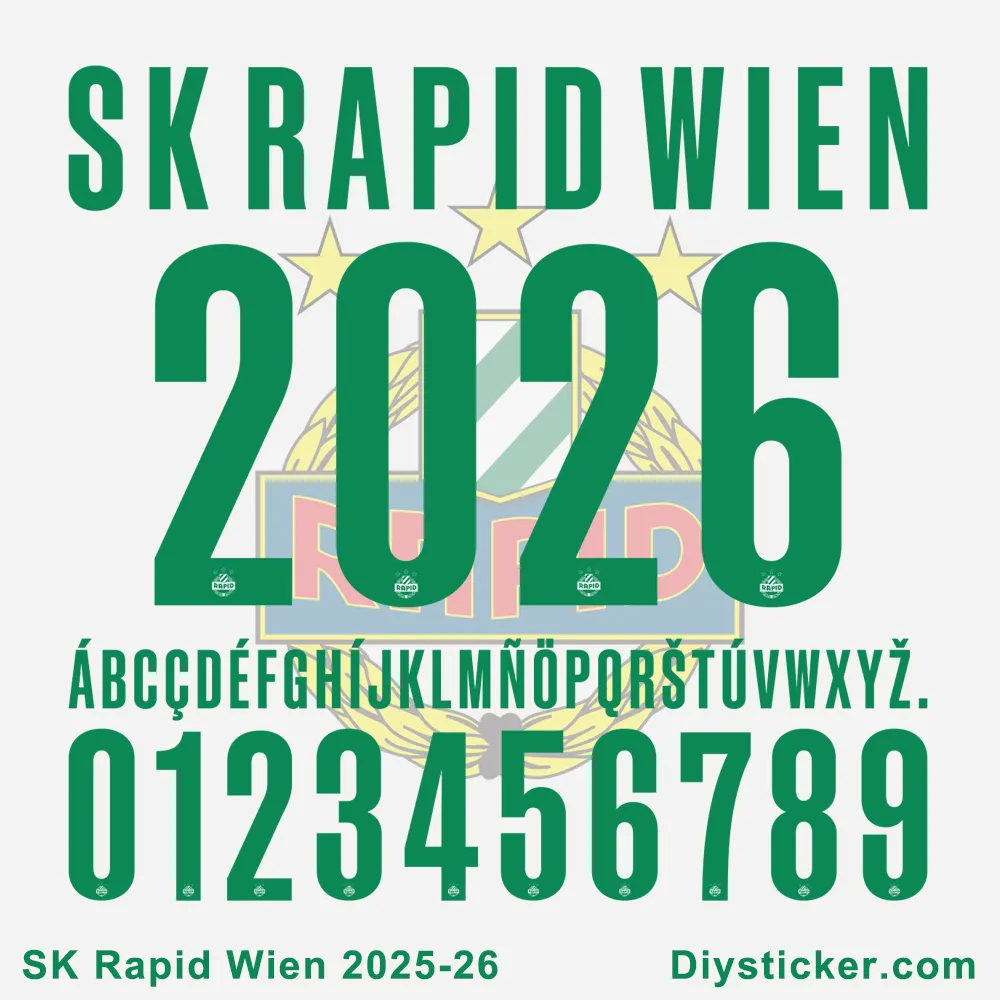
SK Rapid Wien 2025-26 Font Downloads
Official SK Rapid Wien 2025-26 Font! Download TTF, OTF, AI, CDR, PDF vector files. Perfect for custom jerseys and Austrian Bundesliga designs.
Design with the tradition of SK Rapid Wien using the official 2025-26 Season Font. This professionally crafted typeface replicates the club’s distinctive lettering, ideal for creating authentic jerseys, fan merchandise, and digital content for Die Grün-Weißen.